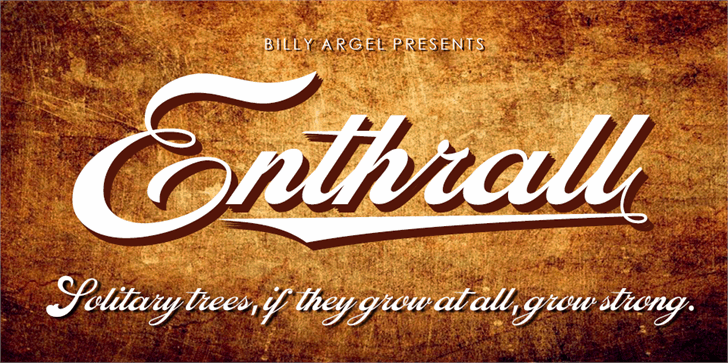
Download and enjoy this free enthrall font. Cool typeface to showcase your designs in a modern way. Go give some love to Font Space for creating this top-notch free typeface. You can create a professional designs with this fancy font.